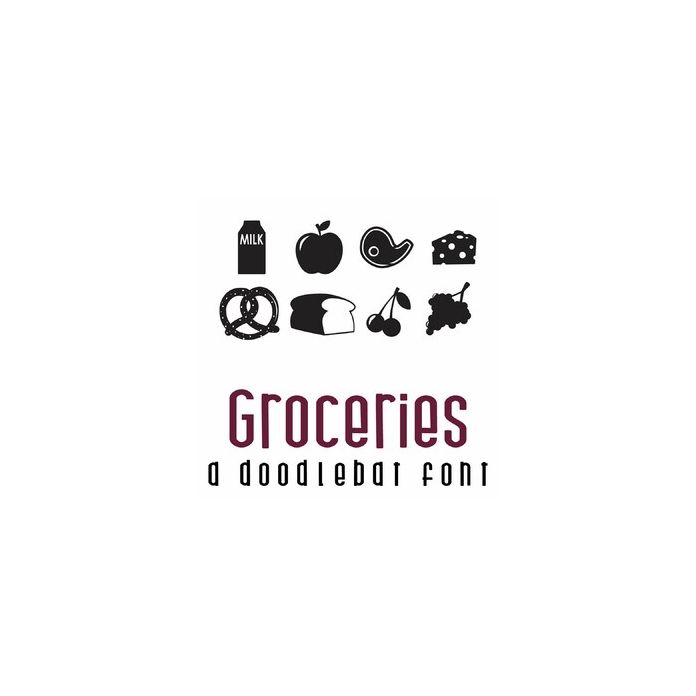
Groceries Doodlebat Font
This fun doodlebat font features 26 grocery items. Perfect for cards, crafts, gifts, decor, scrapbook pages, planner stickers and more!